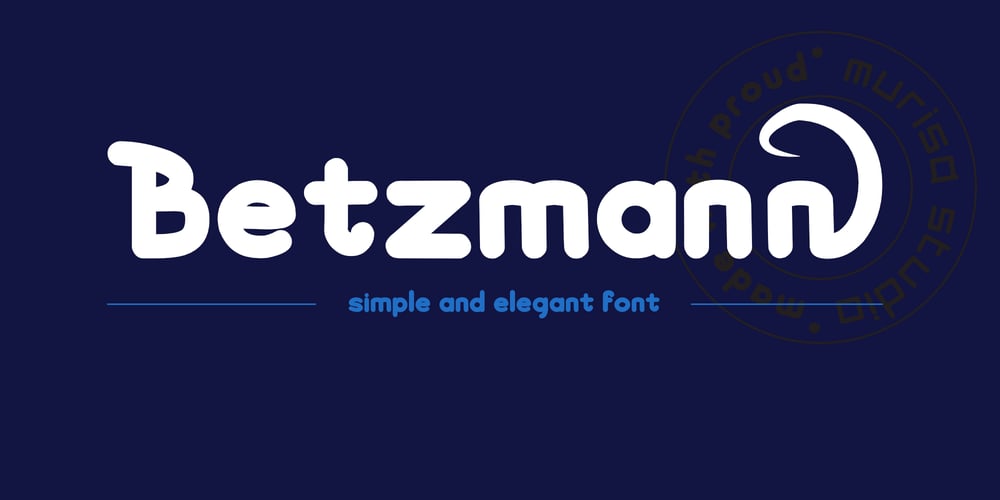
Murisa Betzmann Font Family was designed by Lili and published by Murisa Studio. Murisa Betzmann contains 2 styles and family package options. Murisa Betzmann is a very special font. We make it with enthusiasm and joy. Betzmann is an innovation and style in typography. We provide 4 alternates for each uppercase, and 4 swashes for each lowercase. You are also given various ligatures for variations of your writing. Multiple alternates, multiple swashes, multiple ligatures, a brilliant work of art. Get it right now.